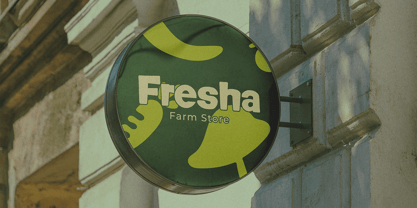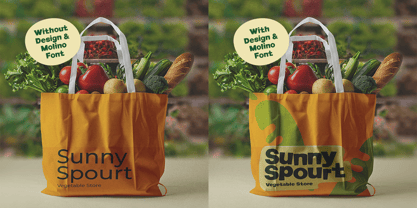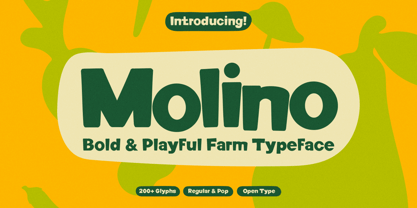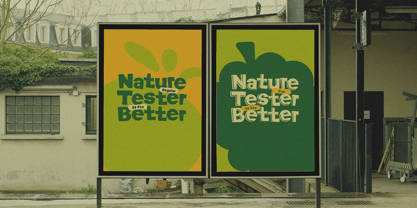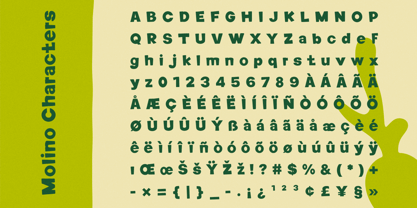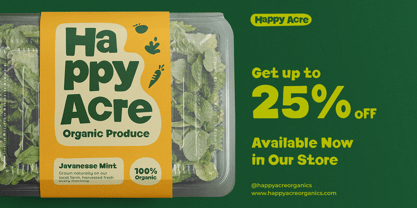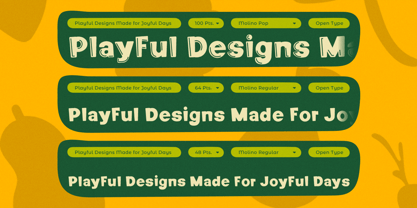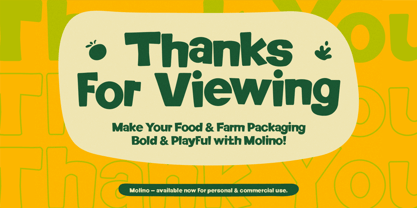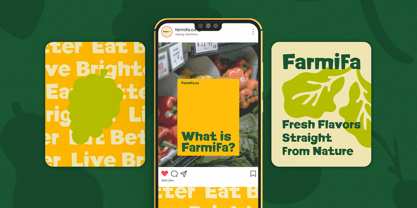
Molino
La famille de polices Molino a été conçue par Asya Fatkhul Illah et publiée par Steptype. Molino contient 2 styles et options de package familial. En savoir plus sur cette famille
Molino is a display typeface that blends bold, rounded, and playful characteristics with a farm/organic feel. Its personality is friendly and warm, yet still strong enough for display needs—ideal when you want typography that feels “homegrown” and instantly recognizable. In packaging, Molino works especially well for product names, labels, seal stickers, and promotional headlines thanks to its thick shapes and clear contrast. For branding, the Regular style can serve as a solid foundation for wordmarks, while the Pop style works perfectly as an accent: campaign titles, discount highlights (large numbers), or fun hero elements.